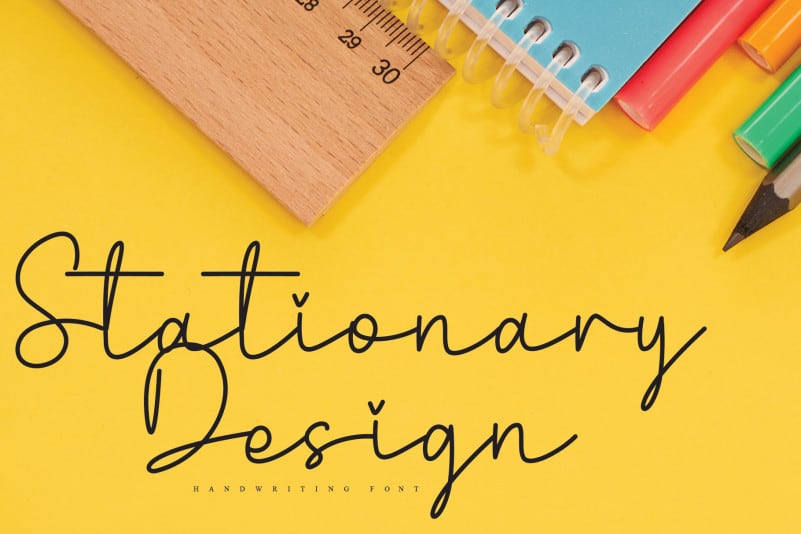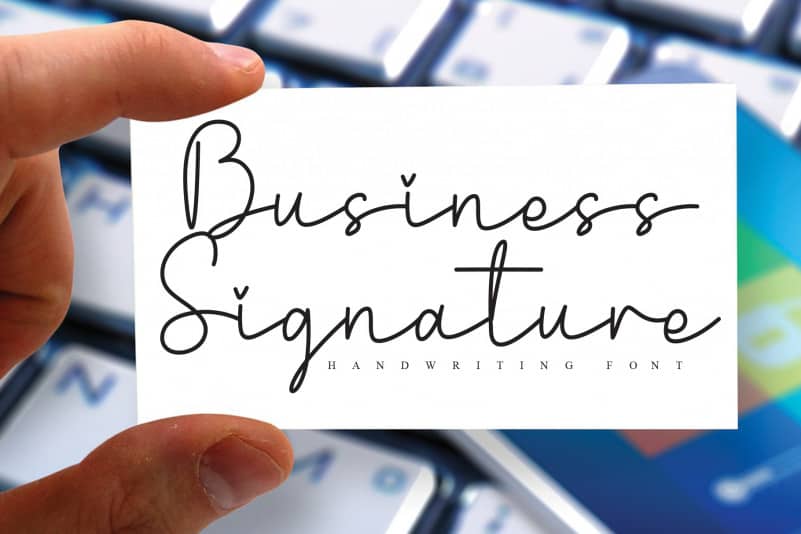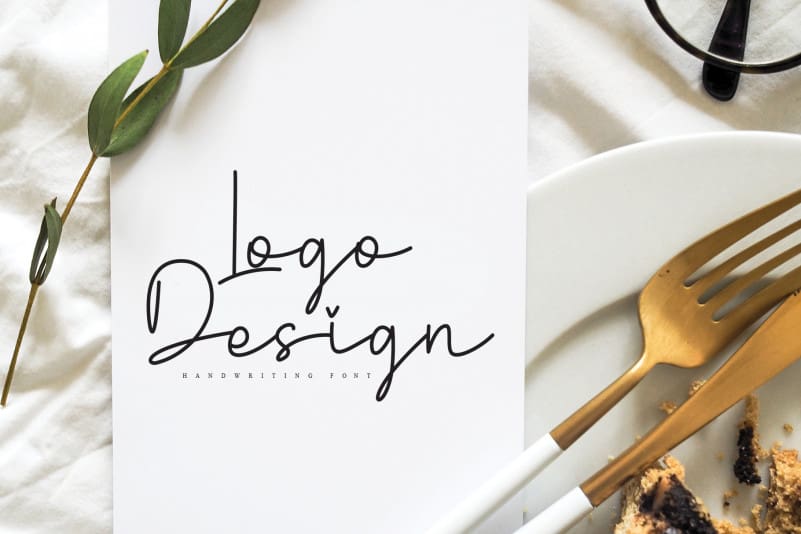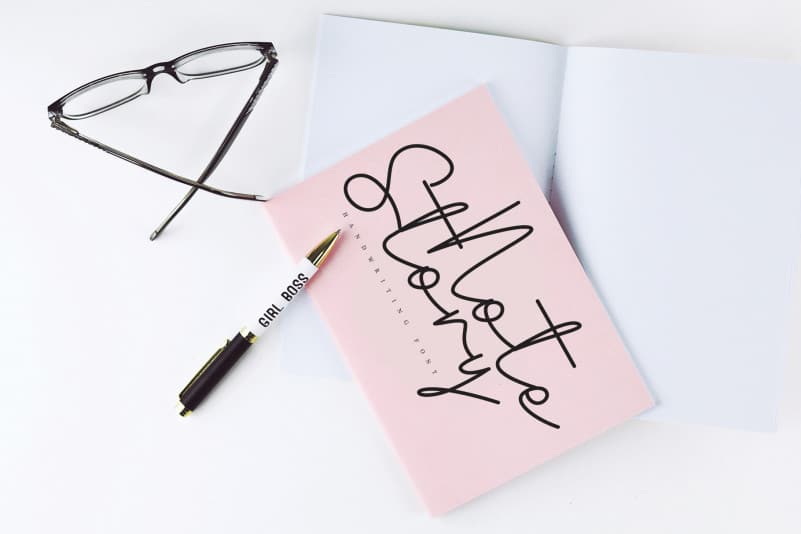
Dazzling Handwritten Font
Introducing Dazzling Handwritten Font. the latest style letters are perfect for wall displays, wedding invitations, social media post logos, advertisements, product packaging, product designs, labels, photography, watermarks, invitations, stationery, and any project that requires taste handwriting.